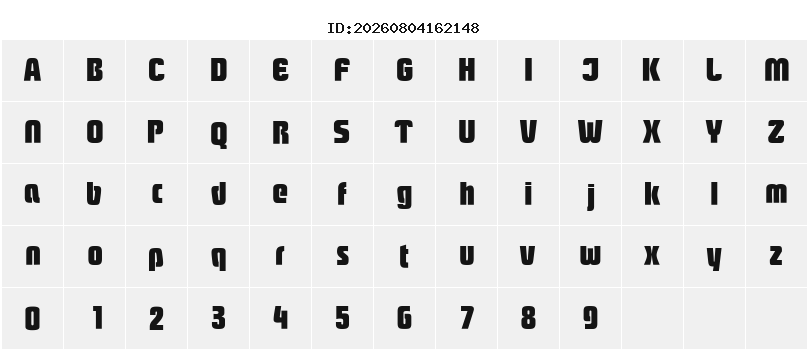
Nightmare Preview
• Font Name: Nightmare
• Full Font Name: Nightmare
About Nightmare.ttf
Nightmare.ttf is a modern, elegant sans-serif font designed for ultimate readability and visual harmony. Perfect for branding, headlines, web design, and print materials.